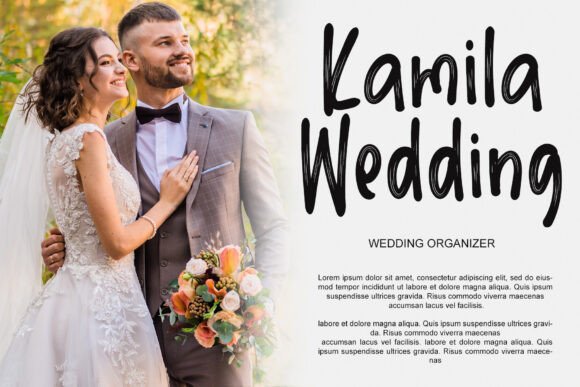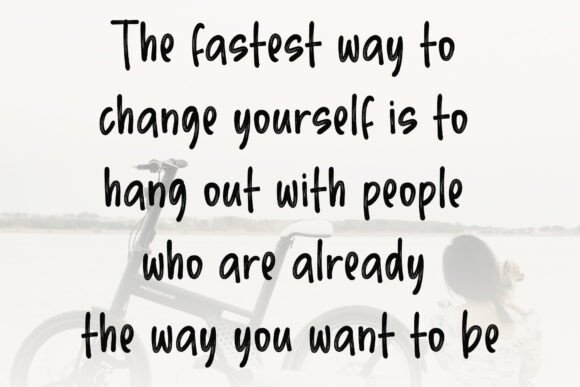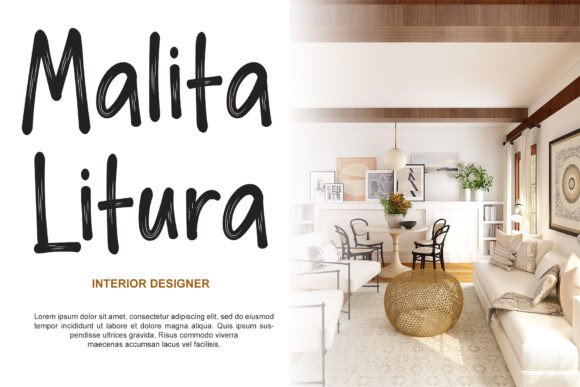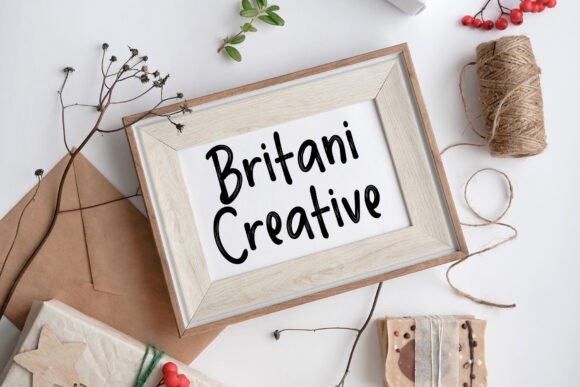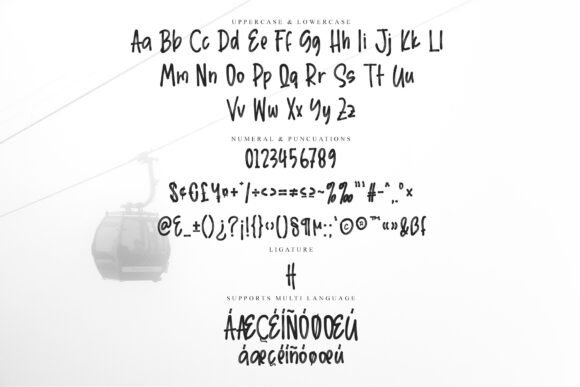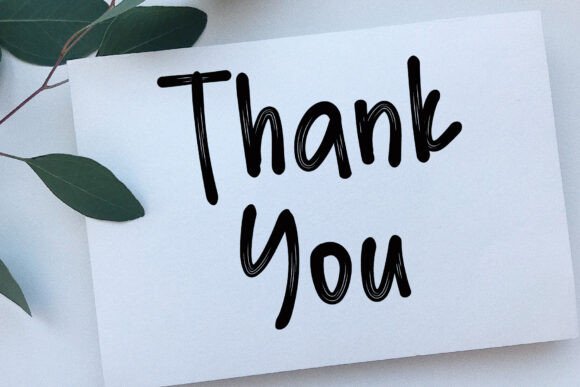
Introduction to Miracle Handwritten Font
Enter the Miracle Handwritten Font, a high-quality, PUA-encoded design resource that adds a touch of whimsy to any project. With its enchanting swashes and playful flair, this font is perfect for creating holiday magic on Christmas cards, decorations, and more. Whether you’re working on a personal project or a commercial design, Miracle Handwritten Font is a valuable asset that can elevate your creative project to new heights.
Key Features of Miracle Handwritten Font
- High-quality, unique design for creative projects and personal use
- Comes in a transparent background, allowing for seamless integration with any design
- Perfect for use in digital designs, with a resolution of 300 DPI for crisp and clear results
- Unique characteristics include a flowing, handwritten style with subtle imperfections, adding a touch of personality to any design
Honest Review: Miracle Handwritten Font
I recently had the chance to experiment with the Miracle Handwritten Font, and I must say it’s a great addition to any design resource collection. ✨
The font’s unique, high-quality design makes it perfect for creative projects where a personal touch is needed. I particularly liked the fact that it comes with a transparent background option, which allows for seamless integration with any background image or color.
Here are some key features that I enjoyed using the Miracle Handwritten Font:
- Transparent background option for easy integration
- Wide range of font styles and sizes
That being said, I did encounter a few limitations while using the Miracle Handwritten Font. ⚠️
Overall, I’m quite impressed with the Miracle Handwritten Font. It’s a great resource for designers looking to add a personal touch to their creative projects. With a little patience and experimentation, you can achieve some truly stunning results with this font.
Tips for Getting the Most Out of Miracle Handwritten Font
To get the most out of the Miracle Handwritten Font, use it on a transparent background to create a beautiful, high-quality design. Experiment with different font sizes and colors to achieve the desired look for your creative project.
The Miracle Handwritten Font is ideal for use in invitations, greeting cards, and other creative projects where a personal touch is desired. It’s also a great choice for branding and logo design, particularly for businesses with a vintage or rustic theme.
Q: Is the Miracle Handwritten Font suitable for large-scale printing?
Yes, the Miracle Handwritten Font has been designed to maintain its high quality even at large font sizes. However, we recommend testing the font at various sizes and resolutions to ensure optimal results for your specific printing needs.